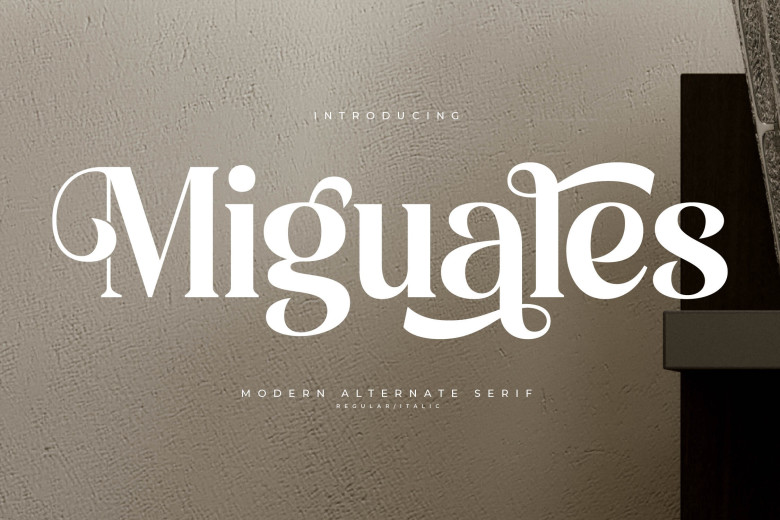
Miguales is a Modern Alternate Serif from Letterena a Luxury Serif font, suitable for any projects such as: logos, branding projects, homeware designs, product packaging, mugs, quotes, posters, shopping bags, t-shirts, book covers, name card, invitation cards, greeting cards, label, photography, watermark, special events, and all your other luxury and beautiful projects that need a Luxury Serif taste.
Miguales Serif Font